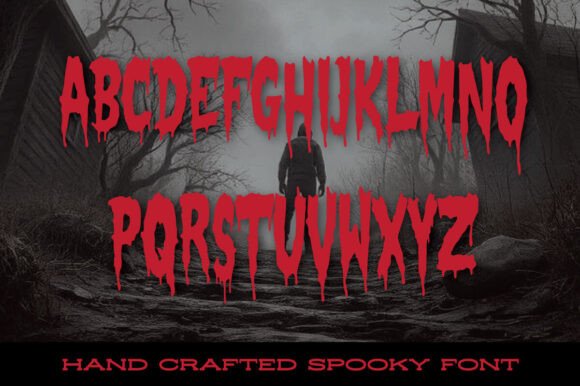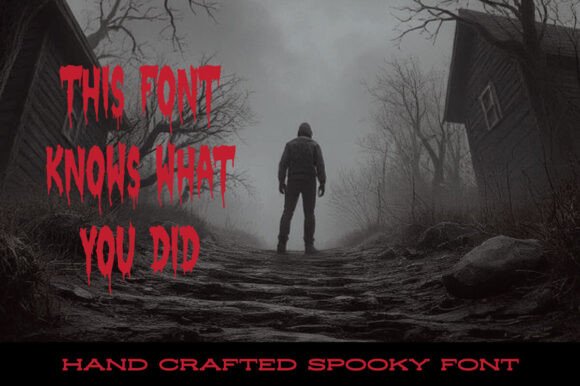
The Font of Fear: Unveiling the Haunting Hemogloom Font
As a designer, have you ever found yourself in a creative rut, searching for the perfect font to bring your dark and ominous project to life? You’re not alone. We’ve all been there, scrolling through font libraries, hoping to stumble upon the perfect combination of eerie intensity and foreboding presence. For those who dare to venture into the unknown, we’re excited to introduce you to the Hemogloom Font – a hauntingly tall and sinister horror font that’s sure to send chills down your spine.
The Hemogloom Font is designed to evoke the slow seep of something sinister or the looming dread of the unknown. Its elongated, tapering letters ooze with a blood-soaked, decayed aesthetic, making it the perfect choice for horror movie titles, chilling posters, and nightmare-fueled branding. Whether you’re a seasoned designer or just starting out, the Hemogloom Font is a valuable addition to your toolkit, offering a unique and captivating way to bring your dark creations to life.
- Font Family: Hemogloom Font is a unique, hand-drawn font designed for various design applications.
- Character Count: The font family includes over 500 characters, including uppercase and lowercase letters, numbers, and special characters.
- Unique Characteristics: Hemogloom Font features a distressed, vintage aesthetic with irregular letterforms and subtle texture, making it ideal for adding a touch of nostalgia to designs.
Hemogloom Font Review
As a designer, I’ve had the chance to work with a variety of fonts, and I must say, Hemogloom is an interesting addition to the mix. ✨ One of the things that stands out about Hemogloom is its unique, handwritten feel. It’s perfect for adding a touch of personality to your designs, and the irregularities in the font make it feel more human and less robotic.
Another strength of Hemogloom is its versatility. ✨ It comes in a range of weights and styles, making it suitable for everything from headings and titles to body text and captions. This makes it a great choice for designers who want a font that can adapt to different contexts and projects.
- ⚠️ The font can be a bit difficult to read at smaller sizes, so it’s best used in larger contexts or paired with a clear, sans-serif font for body text.
- ⚠️ The font’s irregularities can also make it challenging to use in situations where precise alignment and spacing are crucial, such as in technical or scientific contexts.
Overall, I think Hemogloom is a great choice for designers who want to add a touch of whimsy and personality to their work. While it may have some limitations, its unique feel and versatility make it a valuable addition to any designer’s toolkit.
Hemogloom Font is ideal for creating mysterious, eerie, or retro-themed designs.
Use it for:
• Horror movie posters
• Gothic-inspired artwork
• Vintage-style advertisements
• Dark fantasy book covers